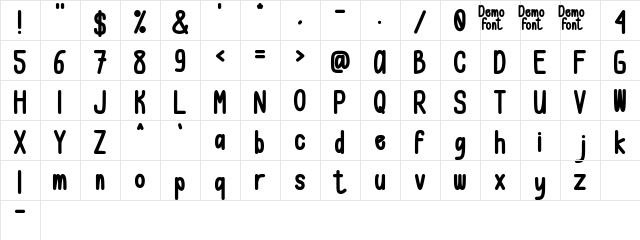
Lemonade Bold Regular
Design Context for Lemonade Bold Typeface
Lemonade Bold takes a measured approach to typography — its balanced proportions and neutral character make it a reliable workhorse for both digital and print work. Its bold stroke weight gives it real presence on the page.
Pro Tip: Use Lemonade Bold in both headline and body roles to test its range before committing to a single application.